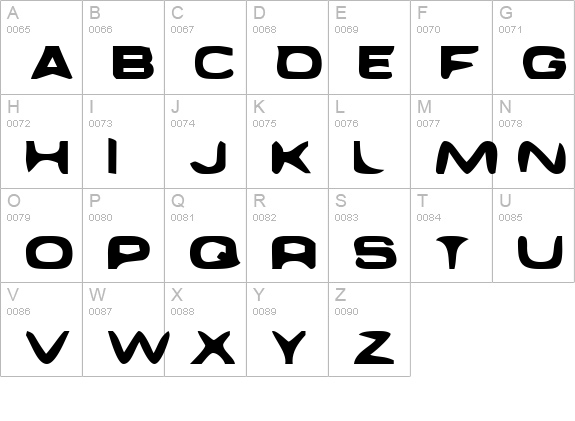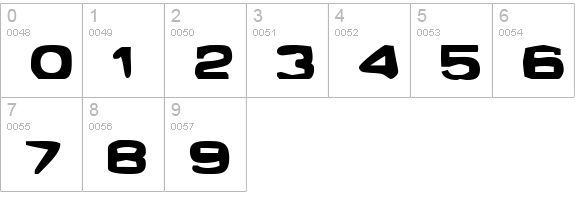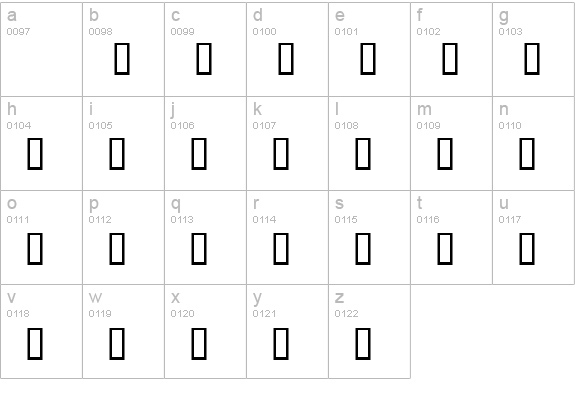
Daggmask Normal Font Details
Daggmask Normal is the standard, neutral variant in the Daggmask typeface family \xE2\x80\x94 well suited to general body text, paragraphs, and standard typographic work.
Daggmask Normal font is a sleek and versatile typeface that combines modern simplicity with a touch of elegance. Its clean lines and balanced proportions make it perfect for a wide range of design projects, from branding and advertising to web design and print materials. This font exudes a sense of professionalism and sophistication, while still maintaining a friendly and approachable feel. Its timeless design makes it suitable for both contemporary and classic designs, ensuring its versatility and longevity. Daggmask Normal font offers a wide range of characters, including uppercase and lowercase letters, numbers, and punctuation marks. Its well-designed kerning and spacing ensure optimal legibility and readability in any size or context. One of the best features of Daggmask Normal font is that it is freely available to download at FontsMarket.com. This means that you can access and use this stunning font without any cost or limitations. Whether you are a professional designer or an aspiring creative, this free font offers endless possibilities to enhance your projects and bring your ideas to life. So why wait? Start exploring the endless creative possibilities that Daggmask Normal font has to offer. Download it for free today at FontsMarket.com and elevate your designs to new heights.